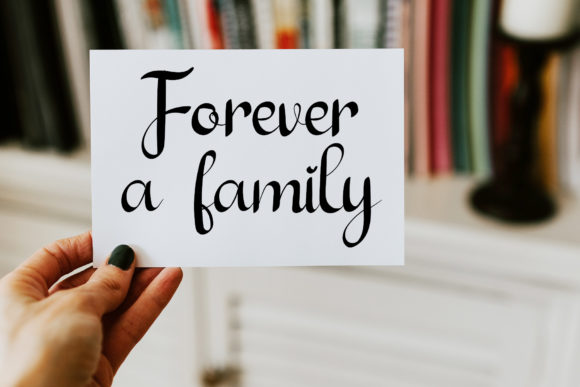
Finlandia Signature Font
db-ku.com - Script & Handwritten -- Finlandia Signature is a unique and elegant handwritten font. It looks beautiful on a variety of designs requiring a personalized style, such as wedding invitations, thank you cards, weddings, greeting cards, logos and so on.